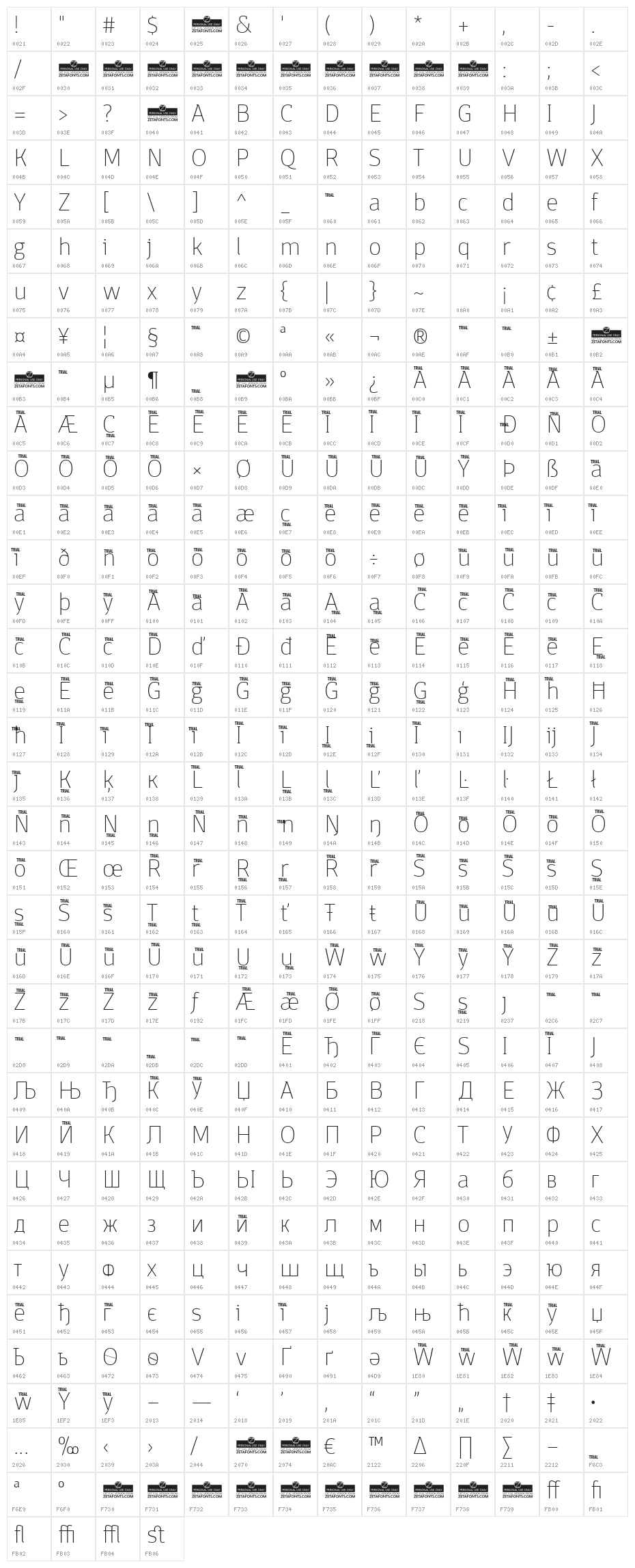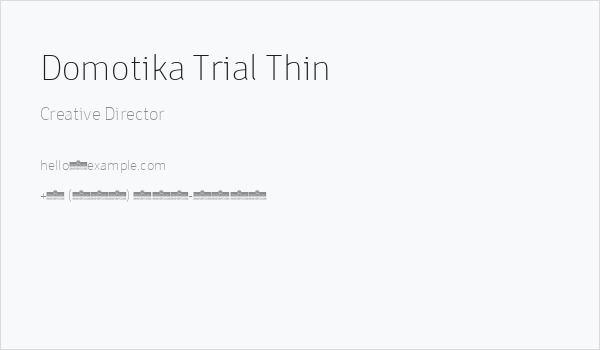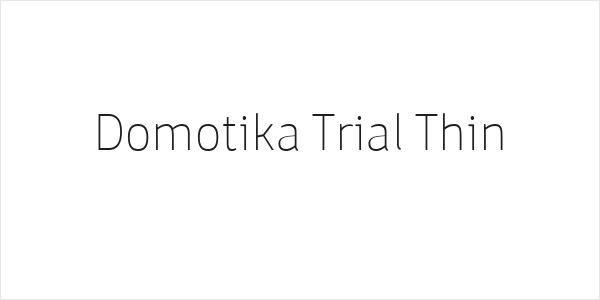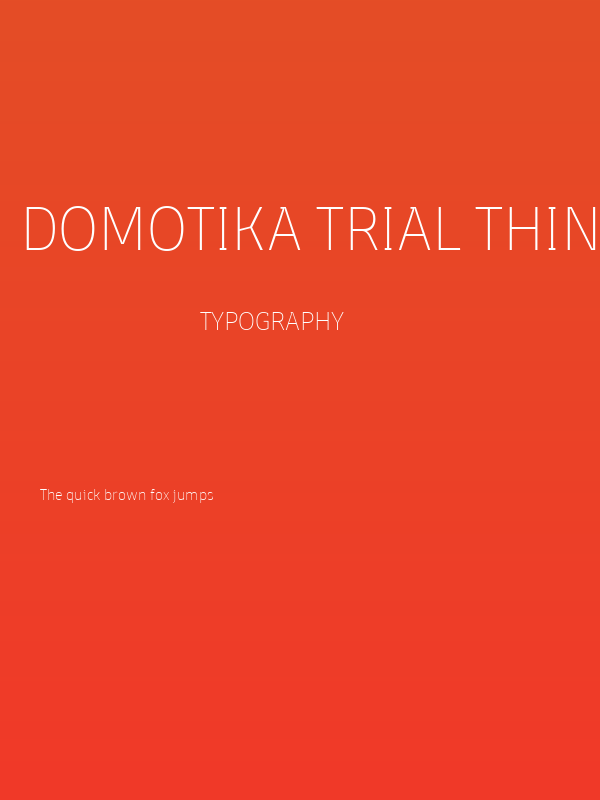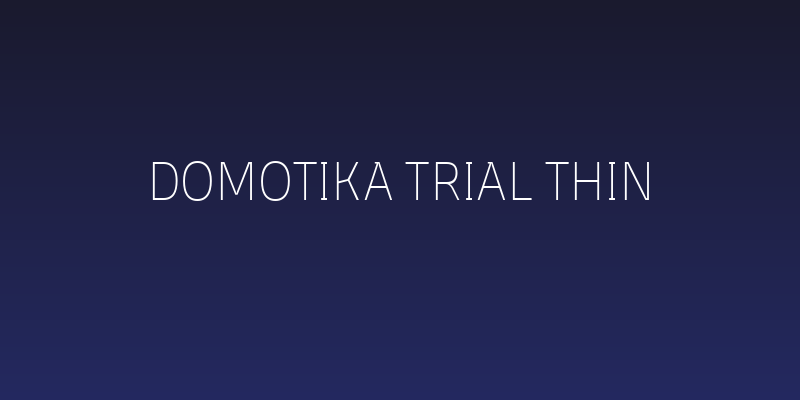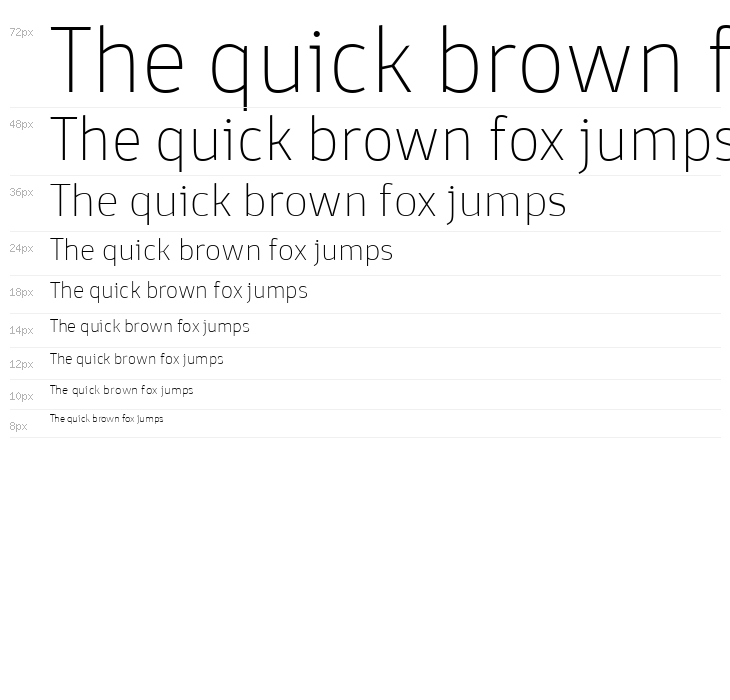
Domotika Trial Thin Font
Domotika Trial Thin Description
This font features a clean and modern design with thin, uniform strokes that create a sleek and minimalist appearance. The characters are well-proportioned, with a consistent height and width that enhances readability. The uppercase and lowercase letters maintain a harmonious balance, while the numerals and special characters are designed to complement the overall aesthetic. The font's simplicity and elegance make it versatile for various design applications.
Proposed ProjectsIdeal for modern branding, minimalist design projects, digital interfaces, and editorial layouts.